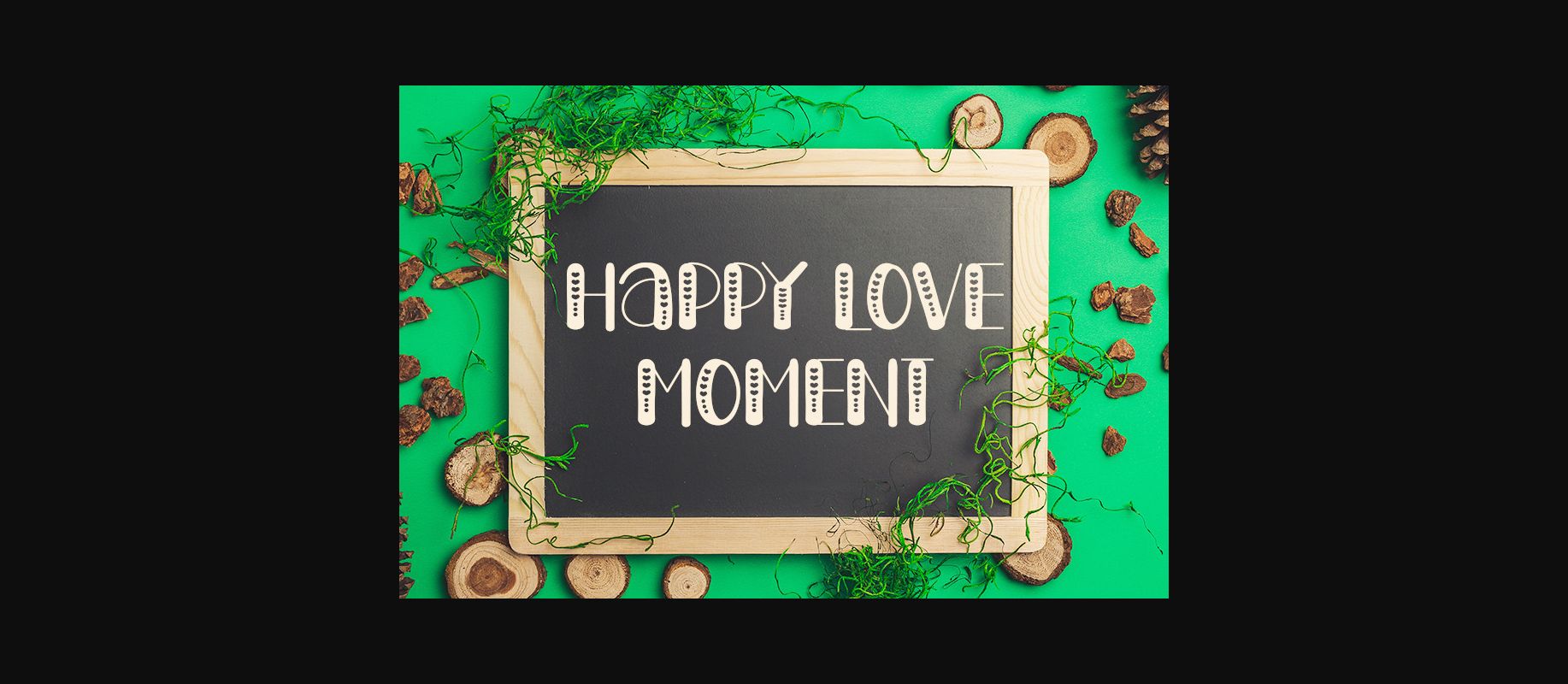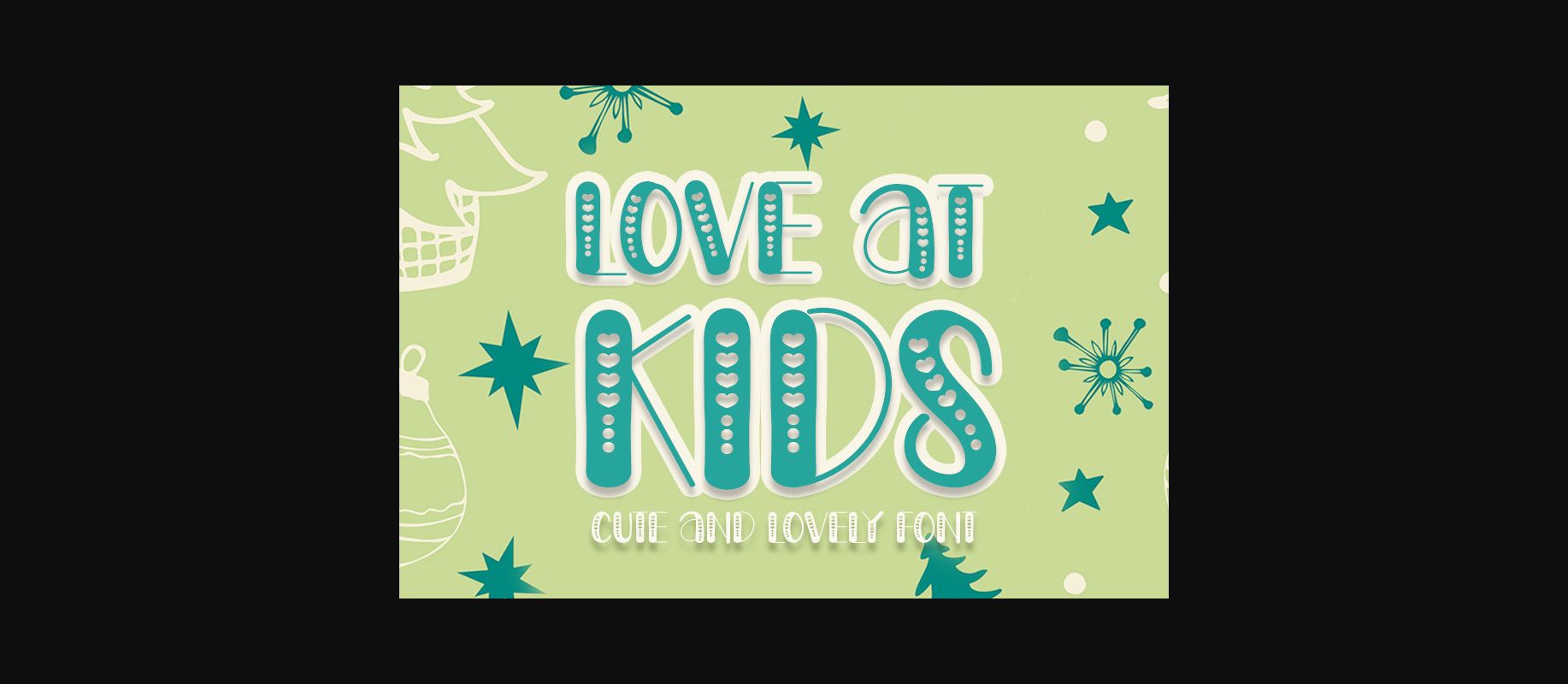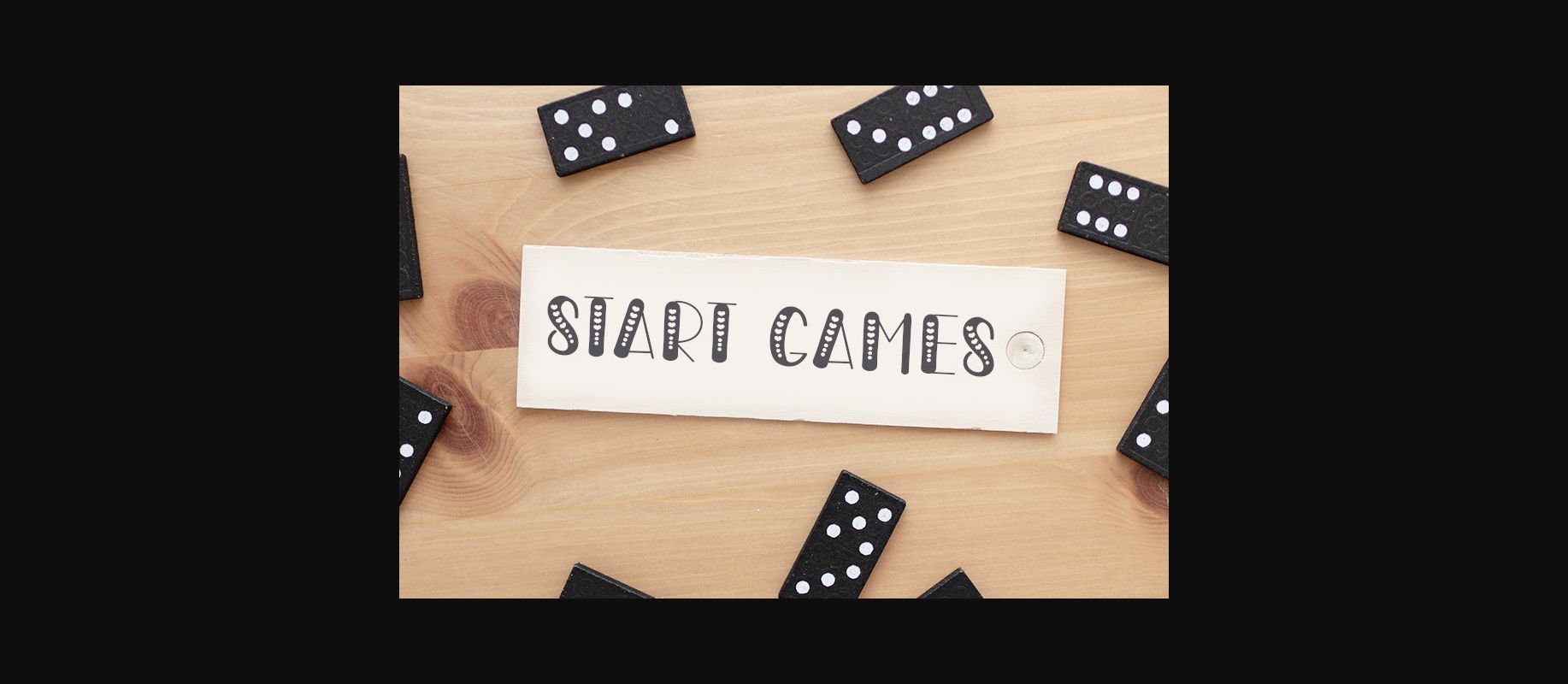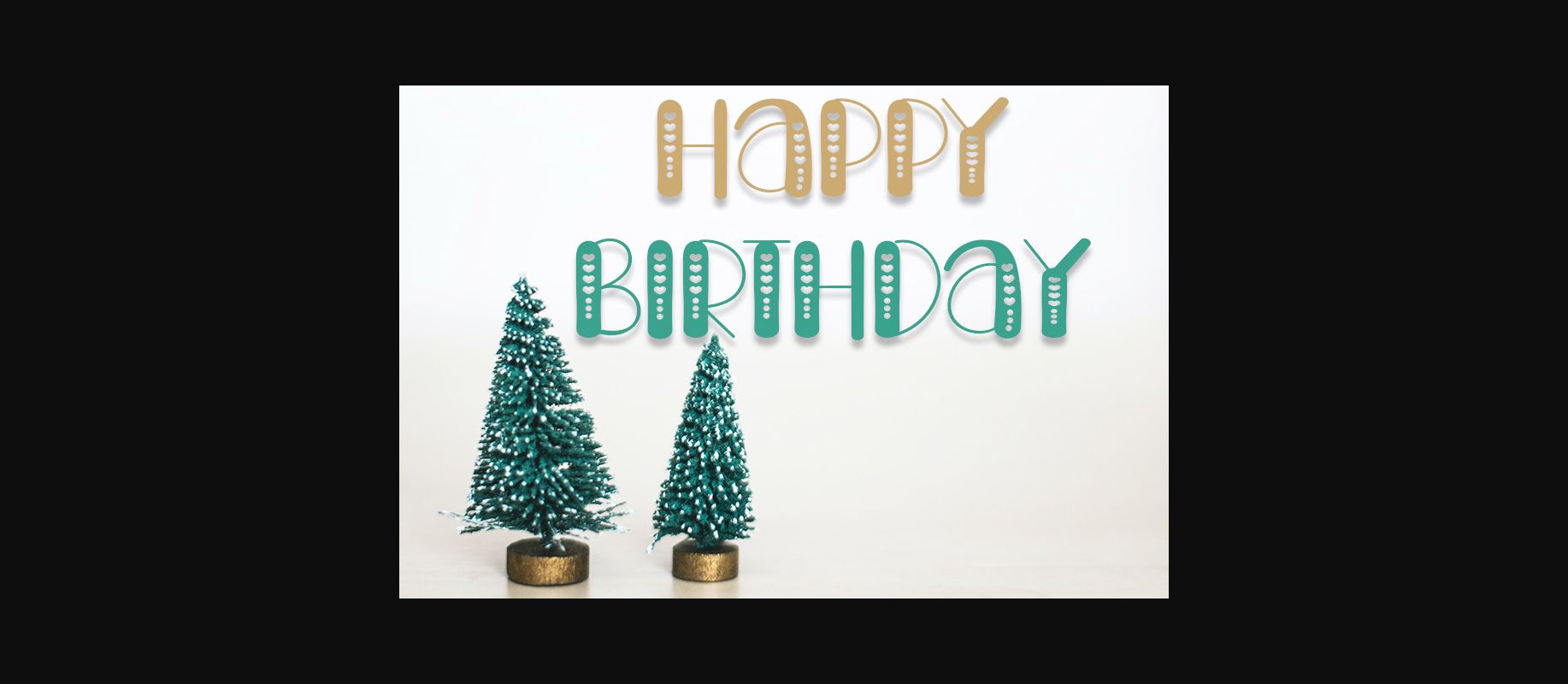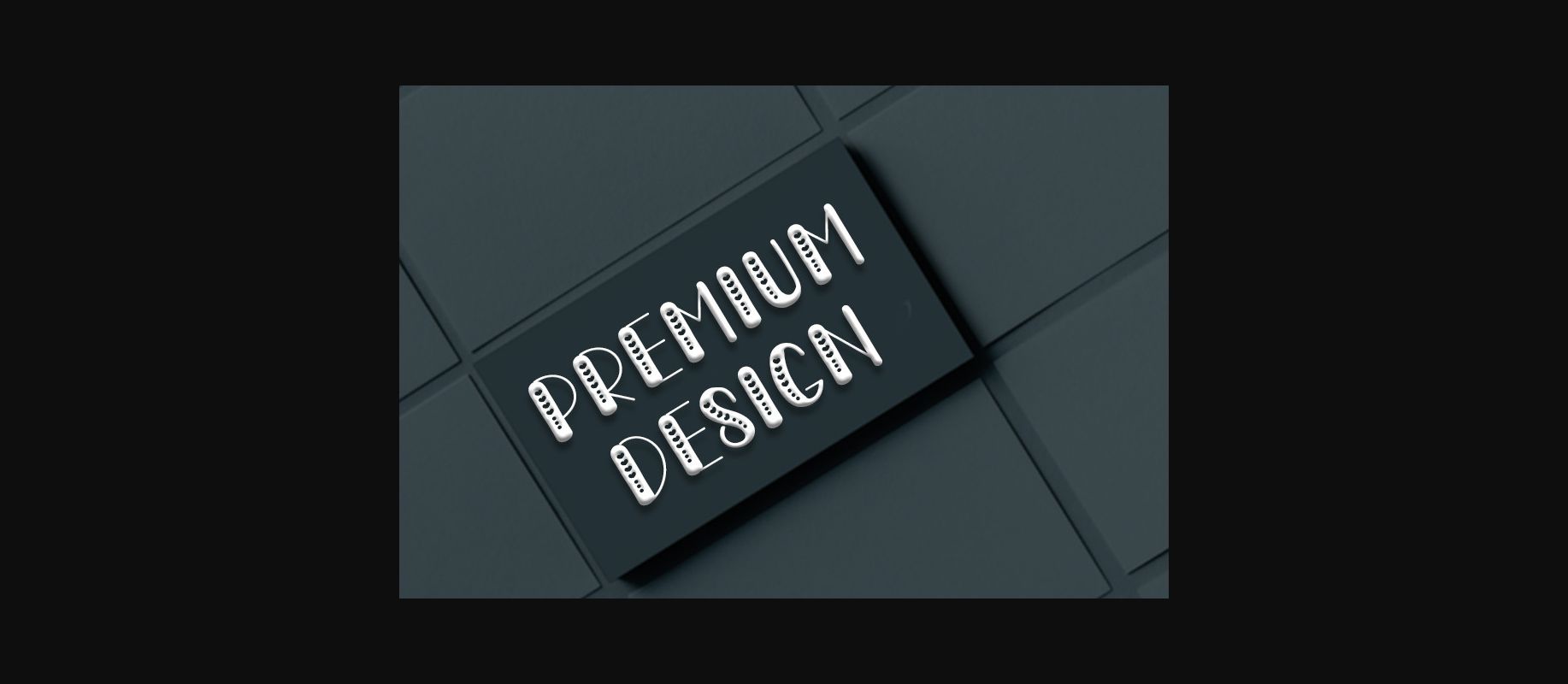
About Love at Kids Font
Love At Kids is a delicate and elegant decorative font with a love theme. Its distinct and well rounded letters make this font a masterpiece. Fall in love with its incredibly versatile style and use it to create spectacular designs!